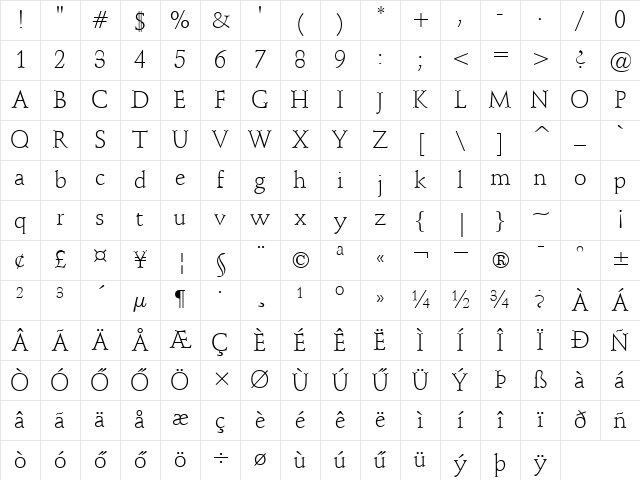
Hu_Lighq Regular
Design Context for Hu_Lighq
Hu_Lighq is a composed and adaptable typeface that performs quietly and consistently across a wide range of design contexts.